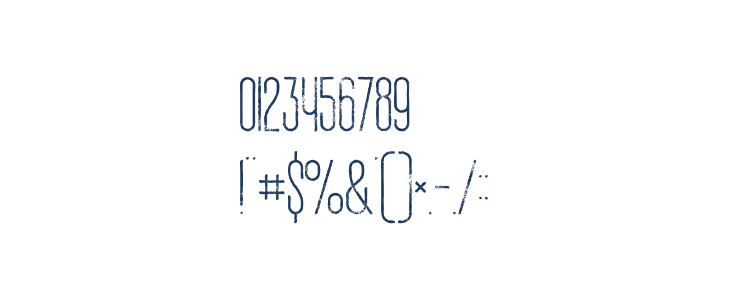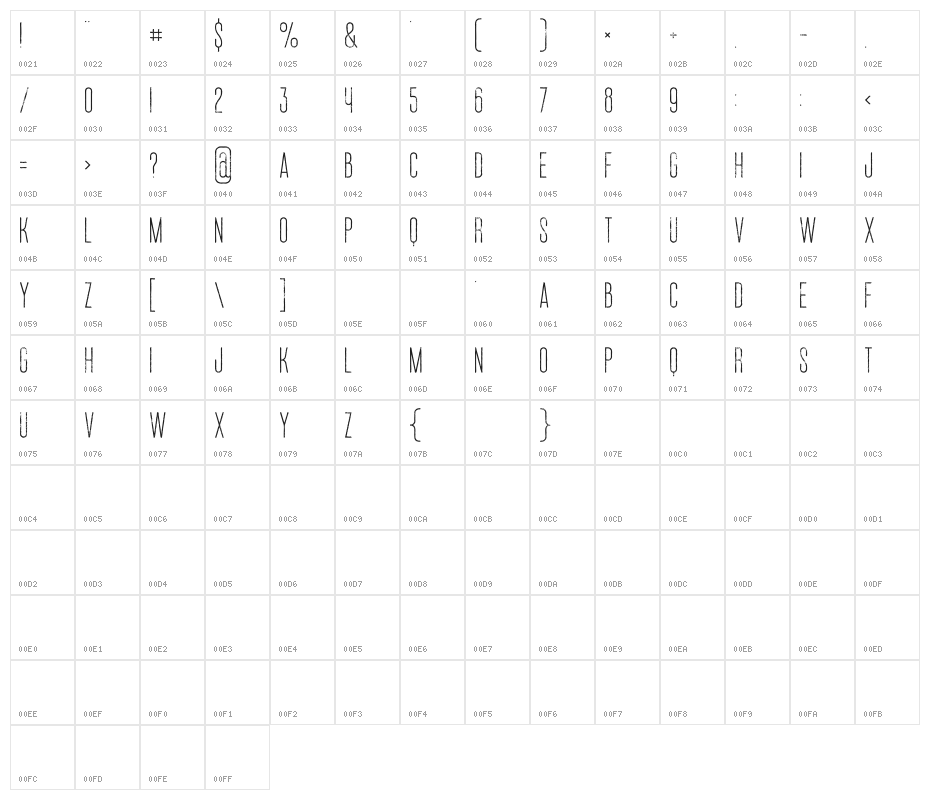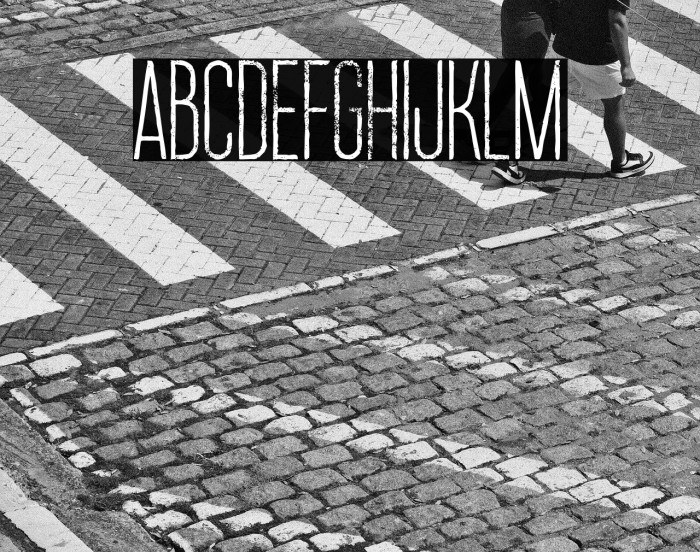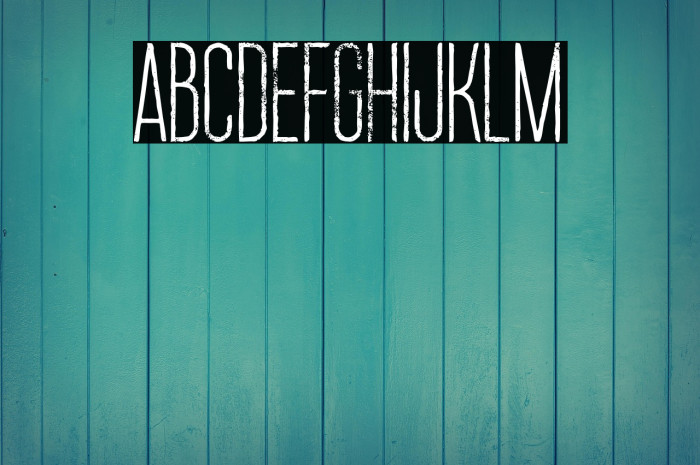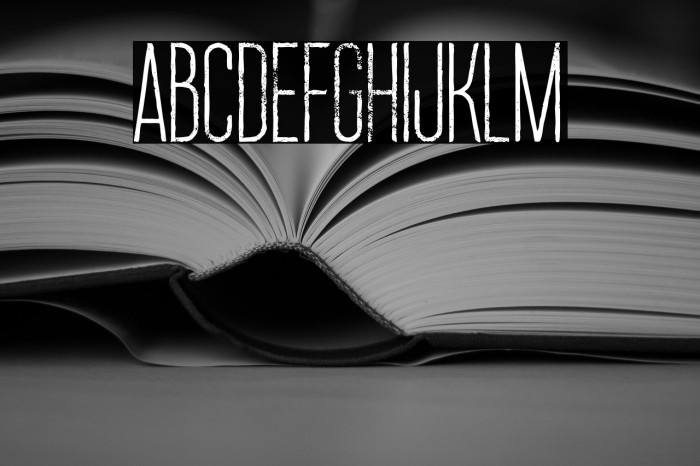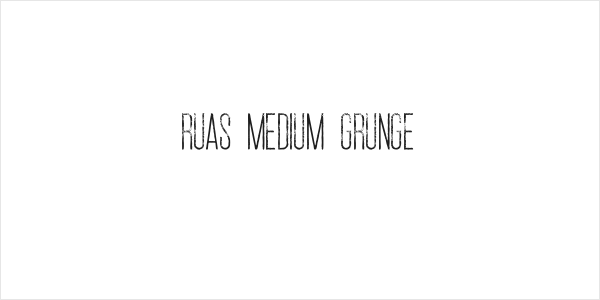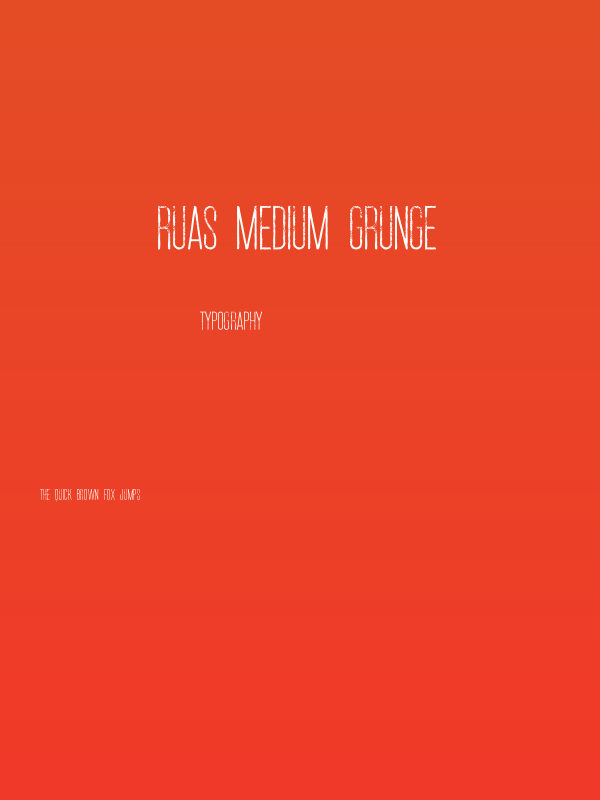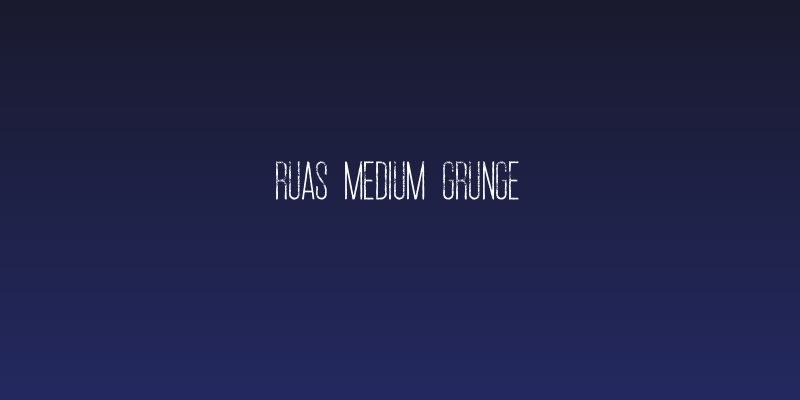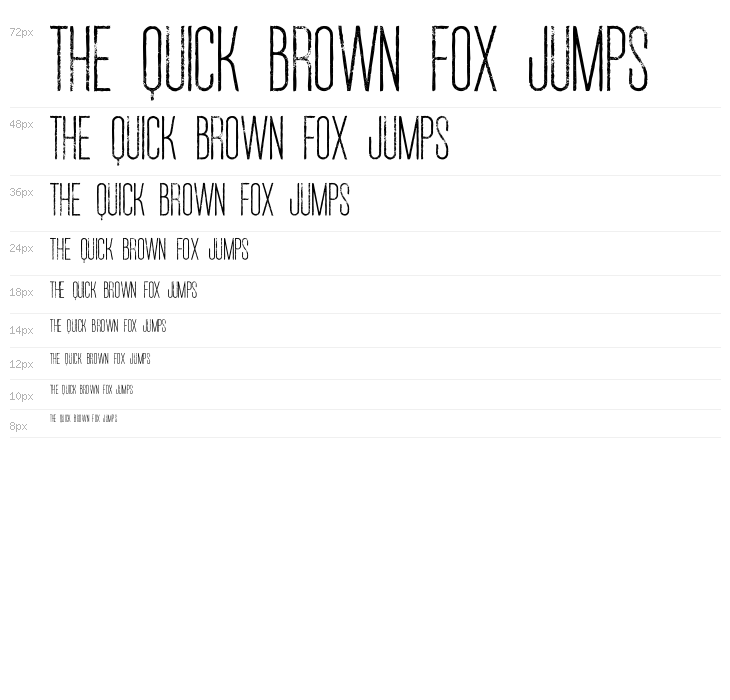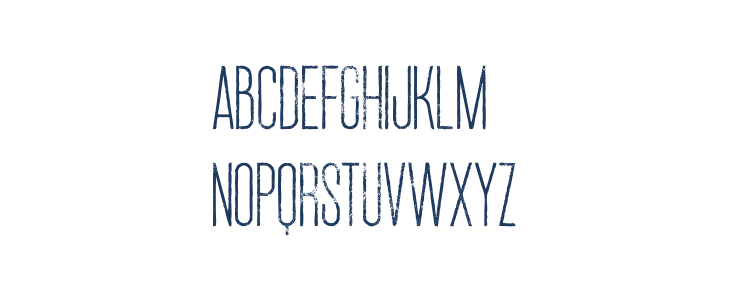
Ruas Medium Grunge Font
Ruas Medium Grunge Description
This font features a distressed, grunge aesthetic with a tall, narrow structure. The characters have a worn, textured appearance, giving them a vintage and rugged feel. The uppercase and lowercase letters maintain a consistent height, contributing to a uniform look. The numerals and special characters share the same distressed style, enhancing the overall theme. The font's design is ideal for projects that require a bold, edgy statement, such as posters, album covers, or branding for alternative or retro-themed products.
| Proposed Projects | Ideal for posters, album covers, branding for alternative or retro-themed products. |